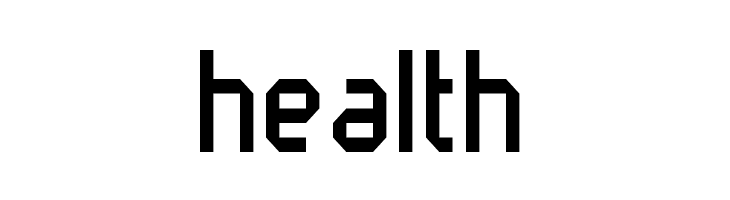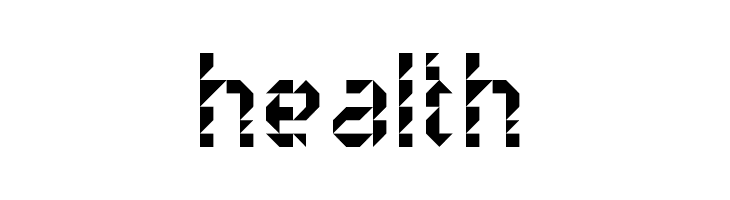
5Metrik Light Regular Font
A geometric, angular font with a modern and technical style.
5Metrik Light Condensed Regular Font
A geometric, condensed font with a modern and minimalistic style.
5Metrik Black Regular Font
A bold, geometric font with a modern, digital aesthetic.
5Metrik Bold Regular Font
5Metrik Black Alien Regular Font
A bold, angular font with a futuristic, alien-like design.
5Metrik Black Condensed Regular Font
A bold, geometric, and condensed font with a futuristic and industrial style.
5Metrik Light Alien Regular Font
A futuristic, geometric font with sharp angles and a blocky design.
5Metrik Bold Alien Regular Font
A bold, angular font with a futuristic, alien-like design.
5Metrik Bold Condensed Regular Font
A bold, condensed, and geometric font with a modern industrial style.